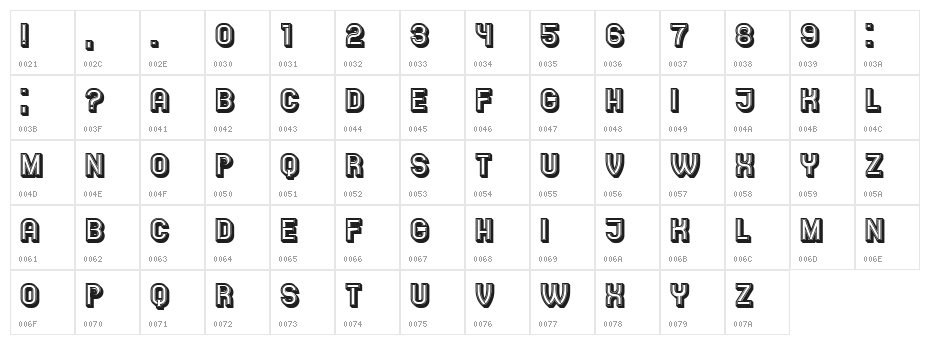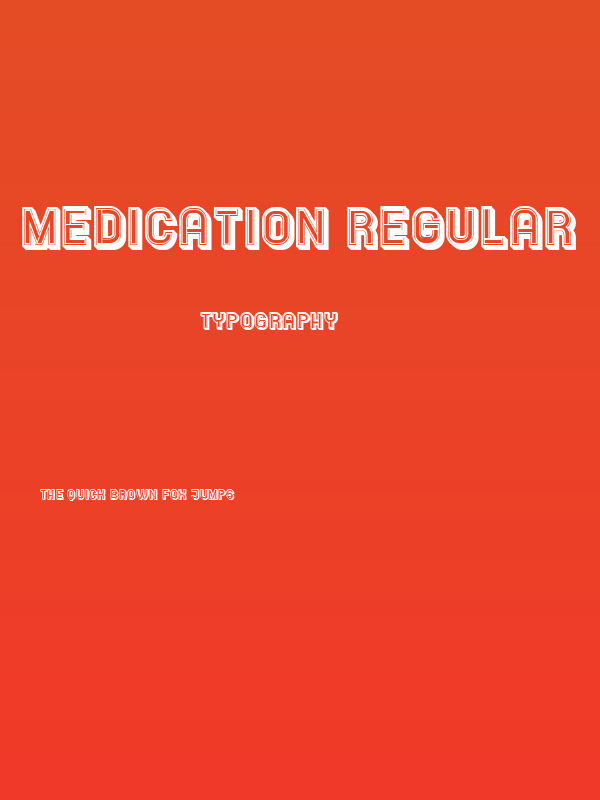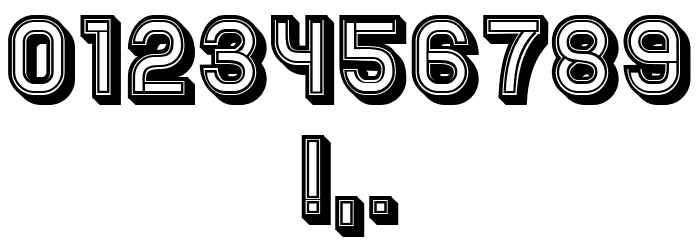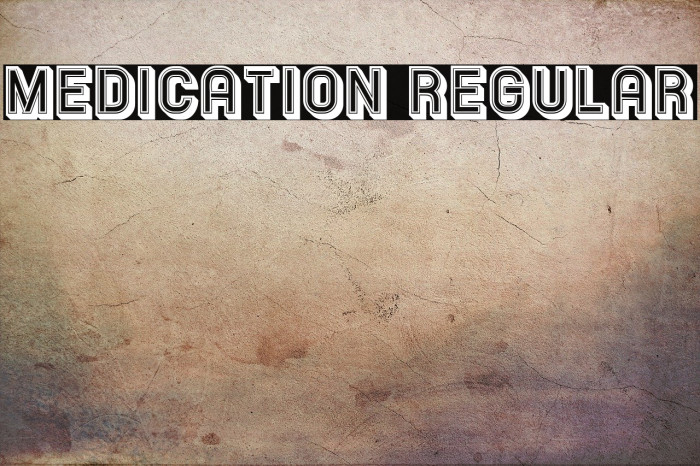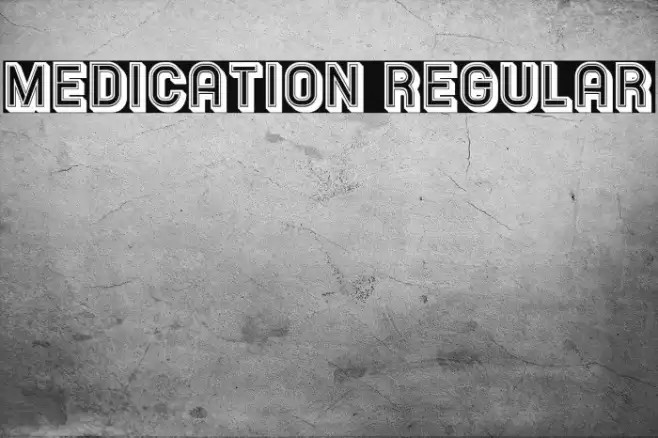
Medication Regular Font
Medication Regular Description
This font features a bold, three-dimensional design with a distinct outline and shadow effect, creating a striking visual impact. The uppercase letters are robust and geometric, with a consistent width and height, giving them a strong presence. The numbers follow the same style, ensuring uniformity across all characters. The font's design is reminiscent of vintage signage or retro advertisements, making it ideal for projects that require a bold and eye-catching typeface. The spacing between characters is normal, allowing for clear readability while maintaining its decorative appeal. The overall style is decorative and display-oriented, perfect for making a statement.
| Overall Style | Vintage, Decorative |
| Proposed Projects | Ideal for posters, logos, headlines, and any design needing a bold, retro aesthetic. |